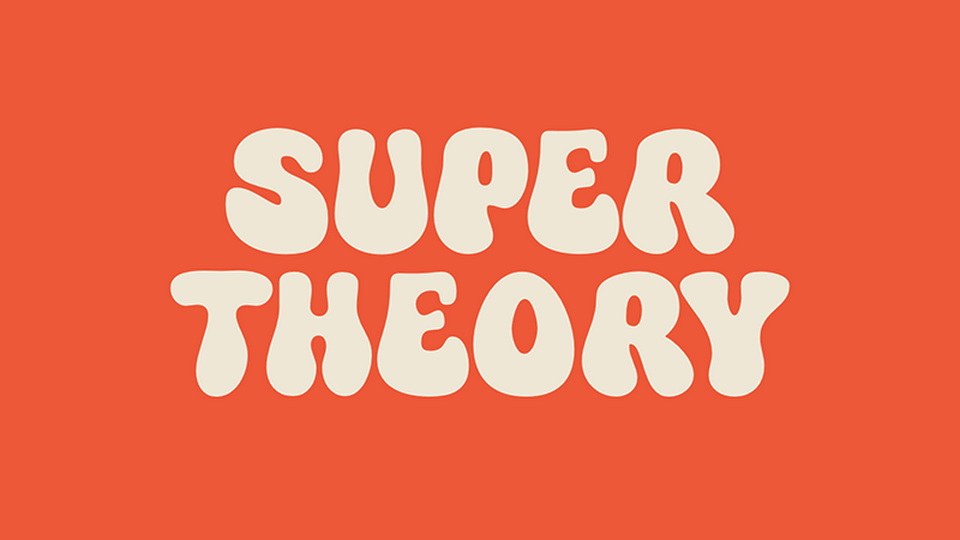
Download Super Theory font, a bold, groovy, and delightfully playful hand-crafted typeface that radiates energy and charm with its chunky letterforms feature dynamic curves.